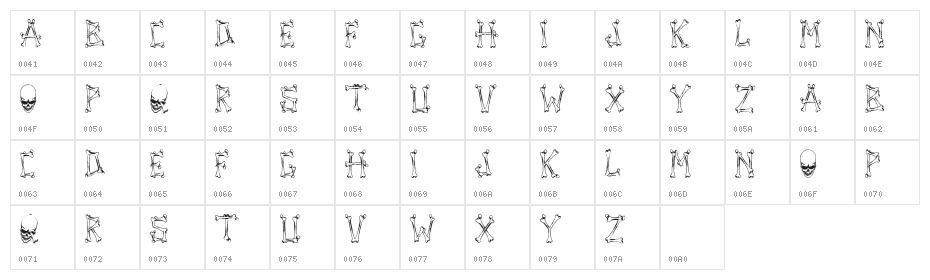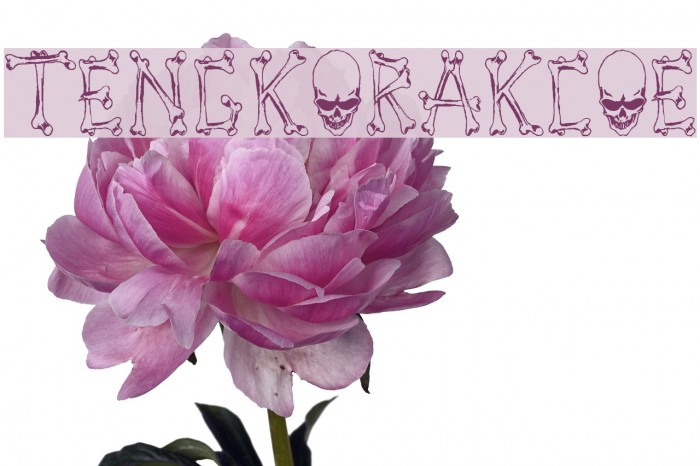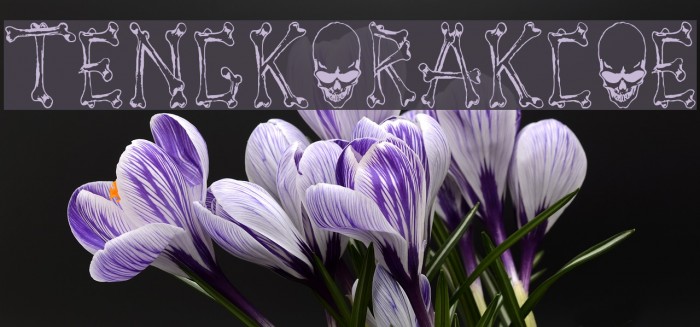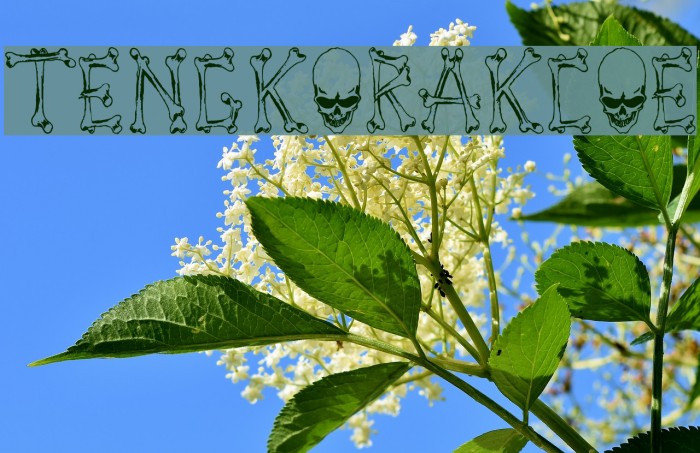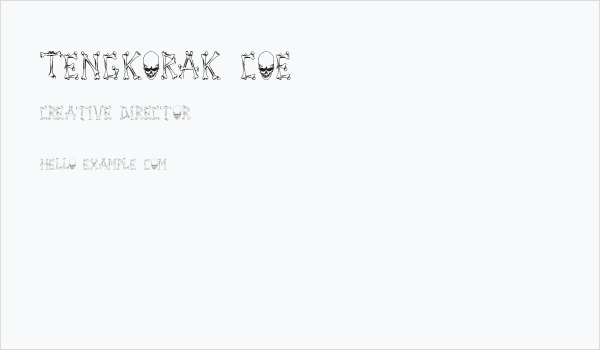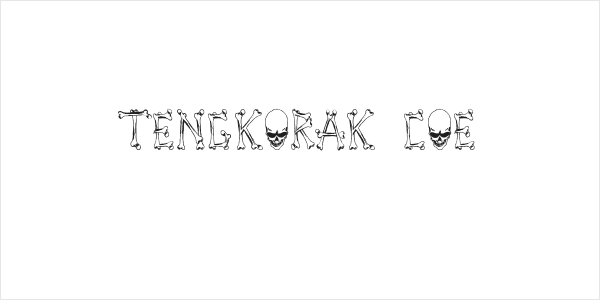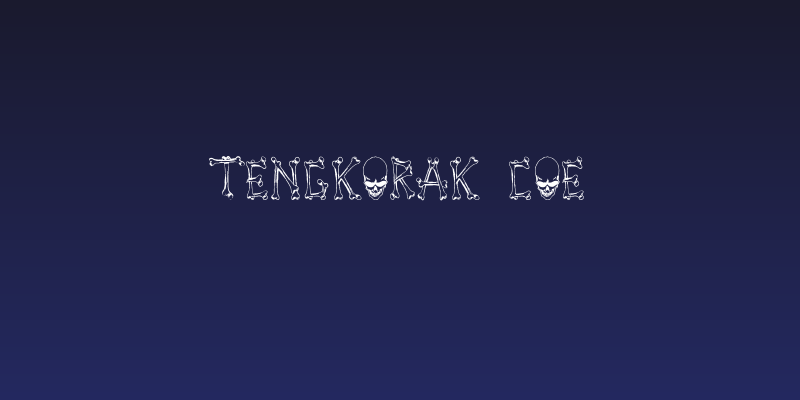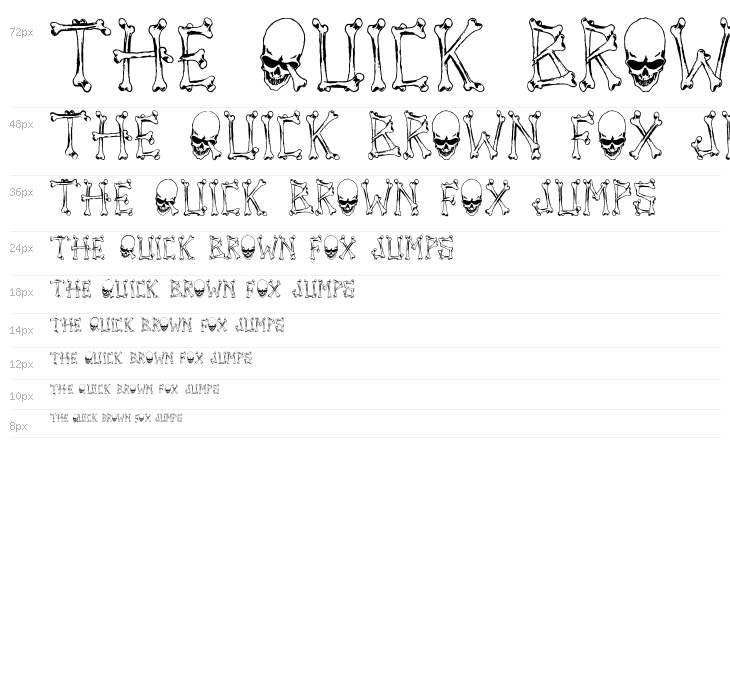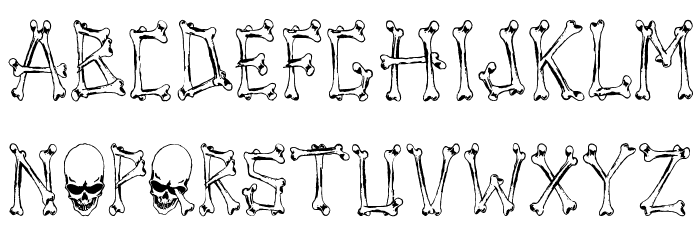
Tengkorak_COE Font
Tengkorak_COE Description
This font features a unique and playful design where each letter is crafted to resemble bones, giving it a skeletal appearance. The characters are composed of bone-like structures with rounded ends, creating a whimsical yet slightly eerie aesthetic. The font maintains a consistent structure across both uppercase and lowercase letters, with a few skull motifs integrated into the design, adding to its macabre charm. The overall look is reminiscent of Halloween or gothic themes, making it ideal for projects that require a spooky or unconventional touch.
| Use Case | Headlines, Logos, Themed Events |
| Proposed Projects | Ideal for Halloween-themed graphics, horror movie posters, party invitations, or any project that requires a gothic or eerie touch. |